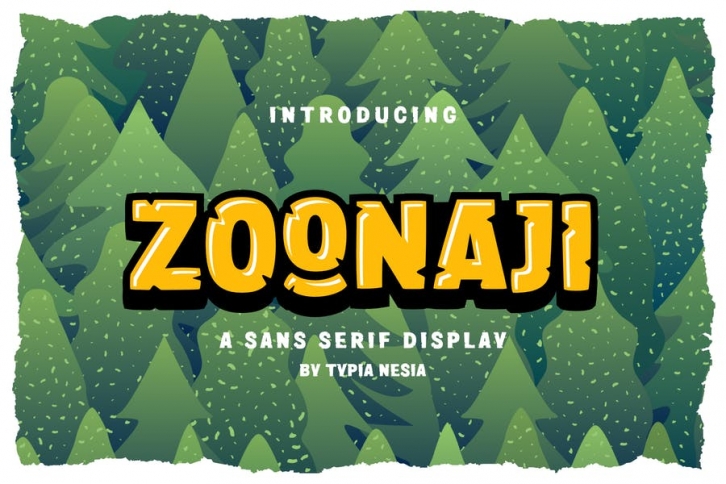
Zoonaji Sans Display Font
Zoonaji is Allcaps Sans Serif display font is perfect for your up coming projects. Such as logo branding, editorial design, stationery design, blog design, modern advertising design, card invitation, art quote, home decor, book/cover title, special events ( wedding, birthday, etc ), and any more.